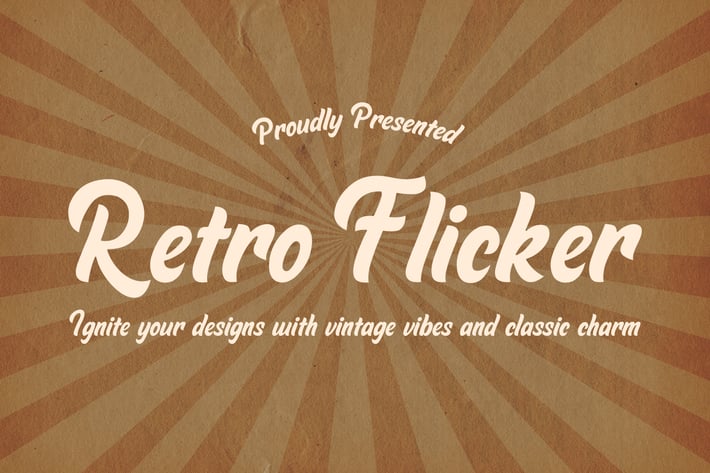
Retro Flicker Font
The Retro Flicker Font combines vintage charm with a modern twist, perfect for creating eye-catching designs. Inspired by classic neon signs and retro aesthetics, this font brings a nostalgic glow to posters, logos, and branding projects. Ideal for those seeking a bold, playful style, Retro Flicker Font adds personality and flair to any creative work. Make your designs stand out with this unique, vintage-inspired typeface.
Unique letterforms